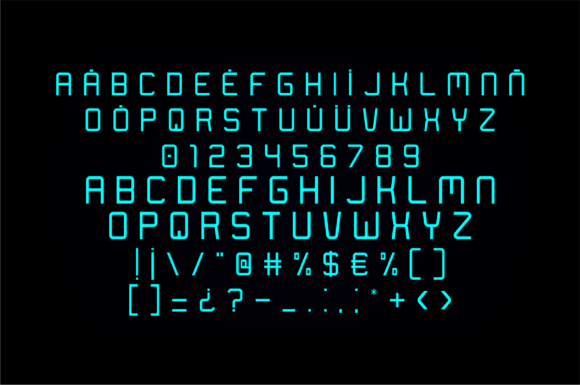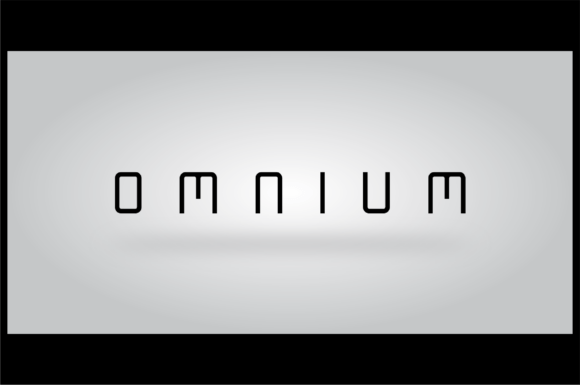
Introduction to Omnium Font
Omnium is a sleek, ultra-modern display typeface designed to transport your projects into the digital frontier.
Characterized by its minimalist, geometric construction and square-rounded letterforms, this font perfectly captures the high-tech aesthetic of science fiction and advanced robotics Its unique open-path design gives it a weightless, glowing feel that is ideal for cyberpunk branding, futuristic interface (UI) design, cinematic space exploration titles, and neon-lit gaming graphics.
Key Features of Omnium Font